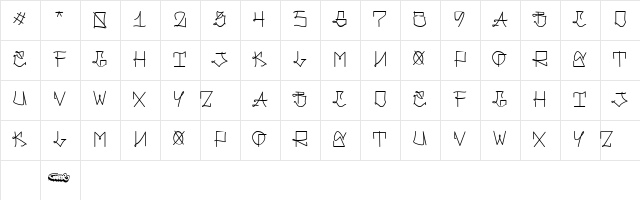
Gangland Style Regular
Design Context for Gangland Style Typeface
Gangland Style is a composed and adaptable typeface that performs quietly and consistently across a wide range of design contexts.
Pro Tip: Use Gangland Style in both headline and body roles to test its range before committing to a single application.